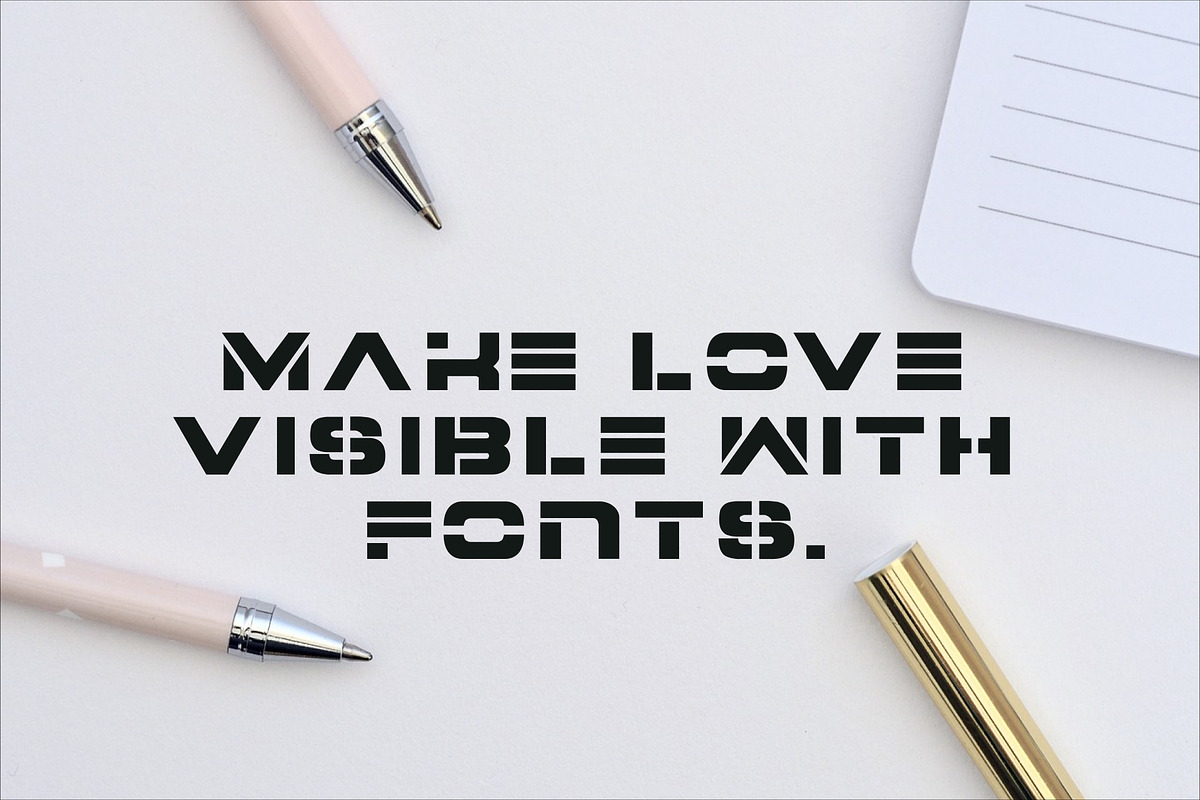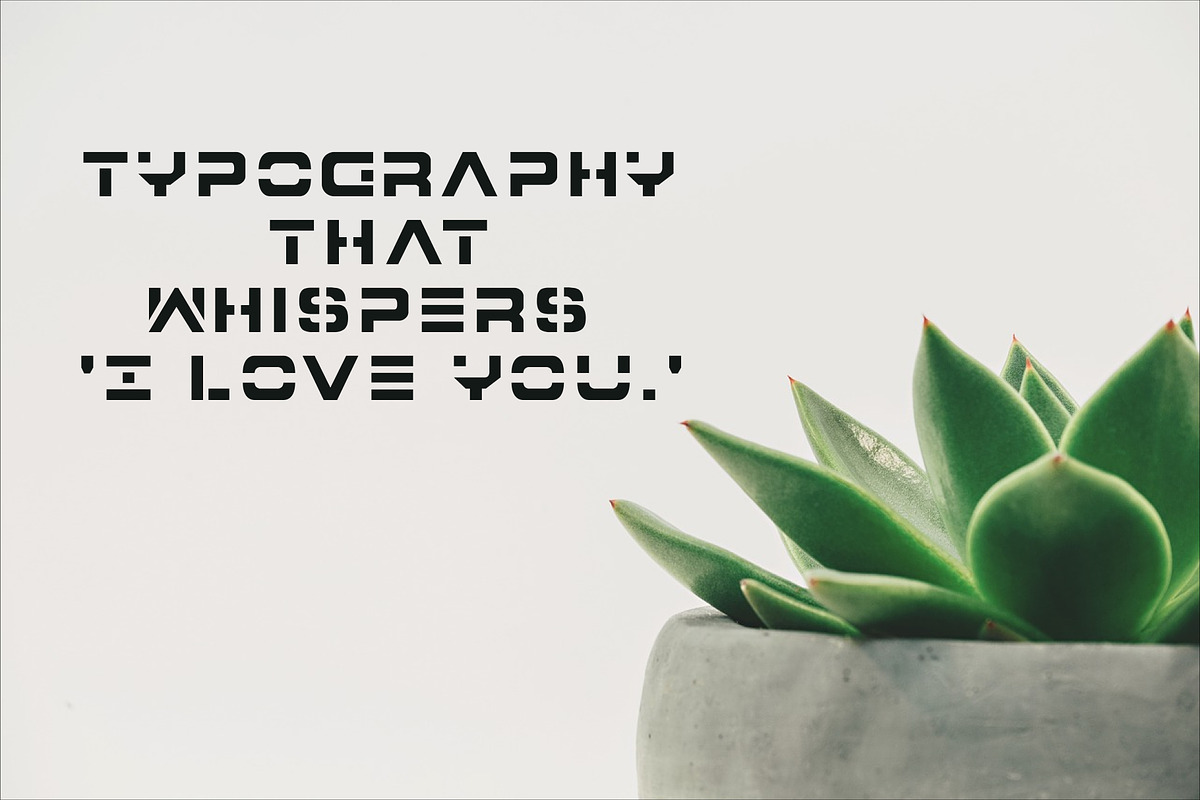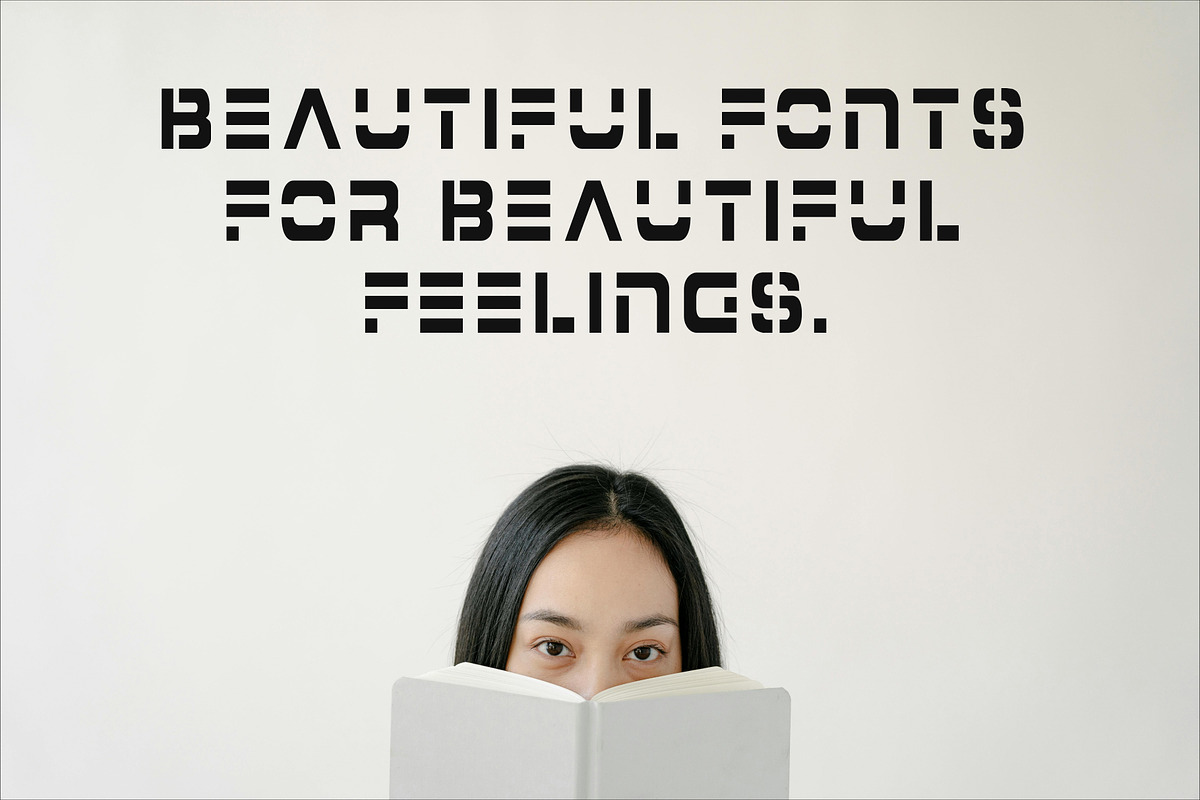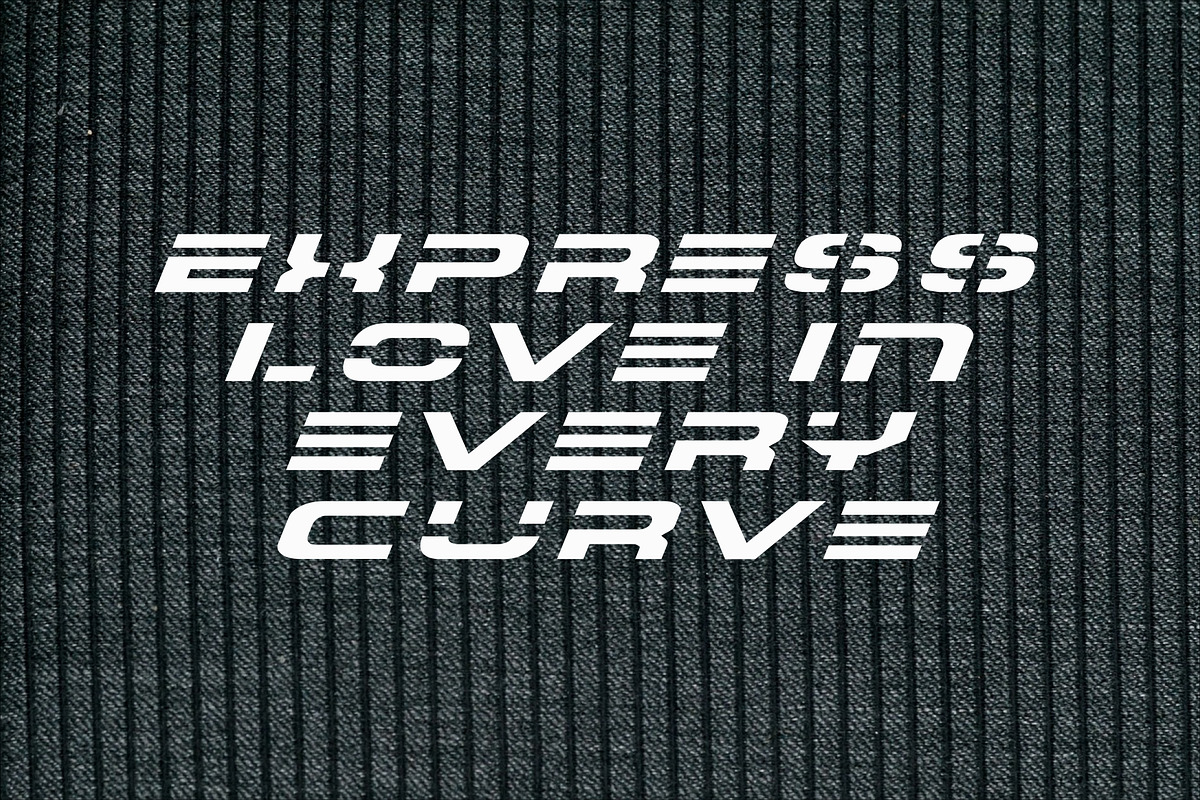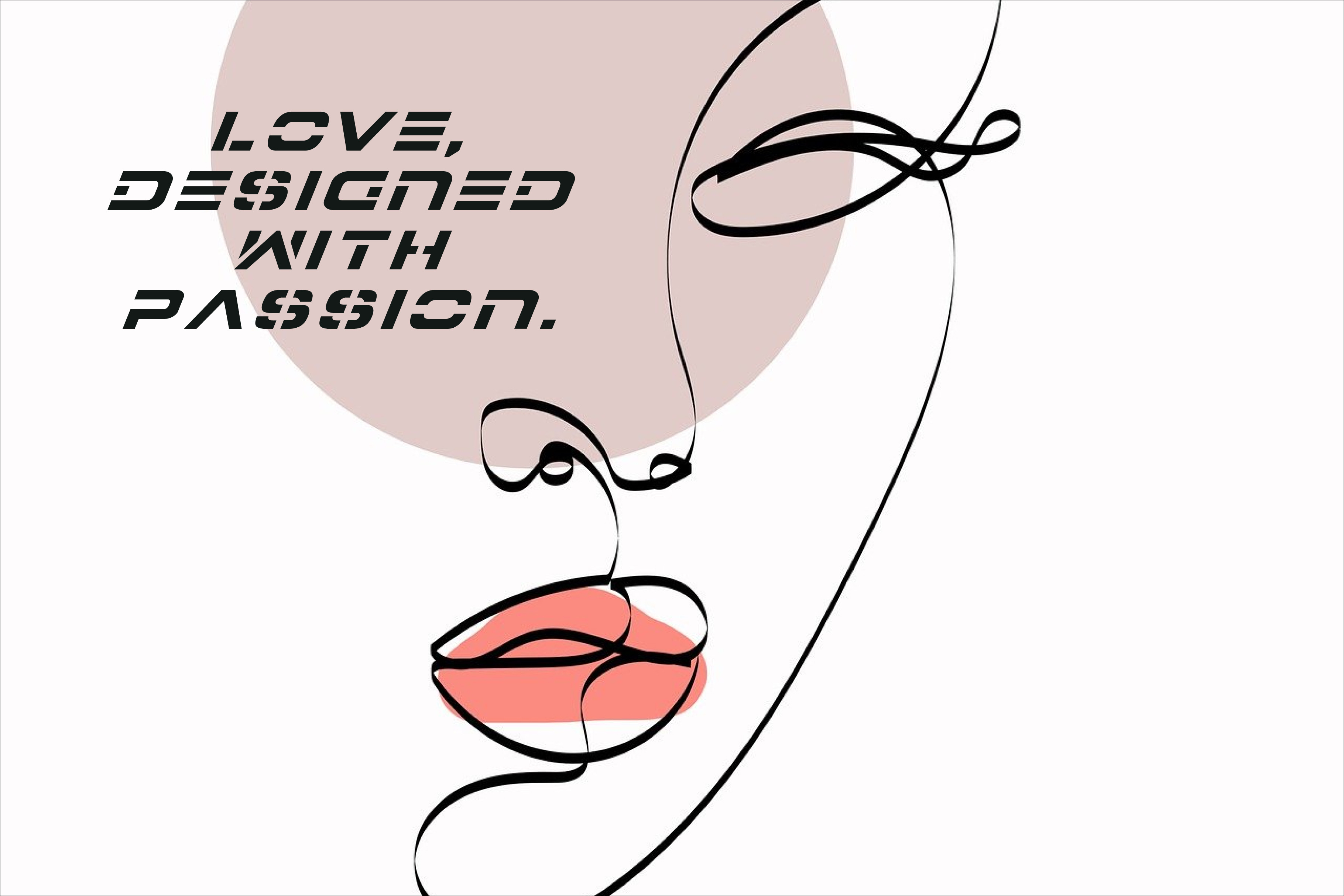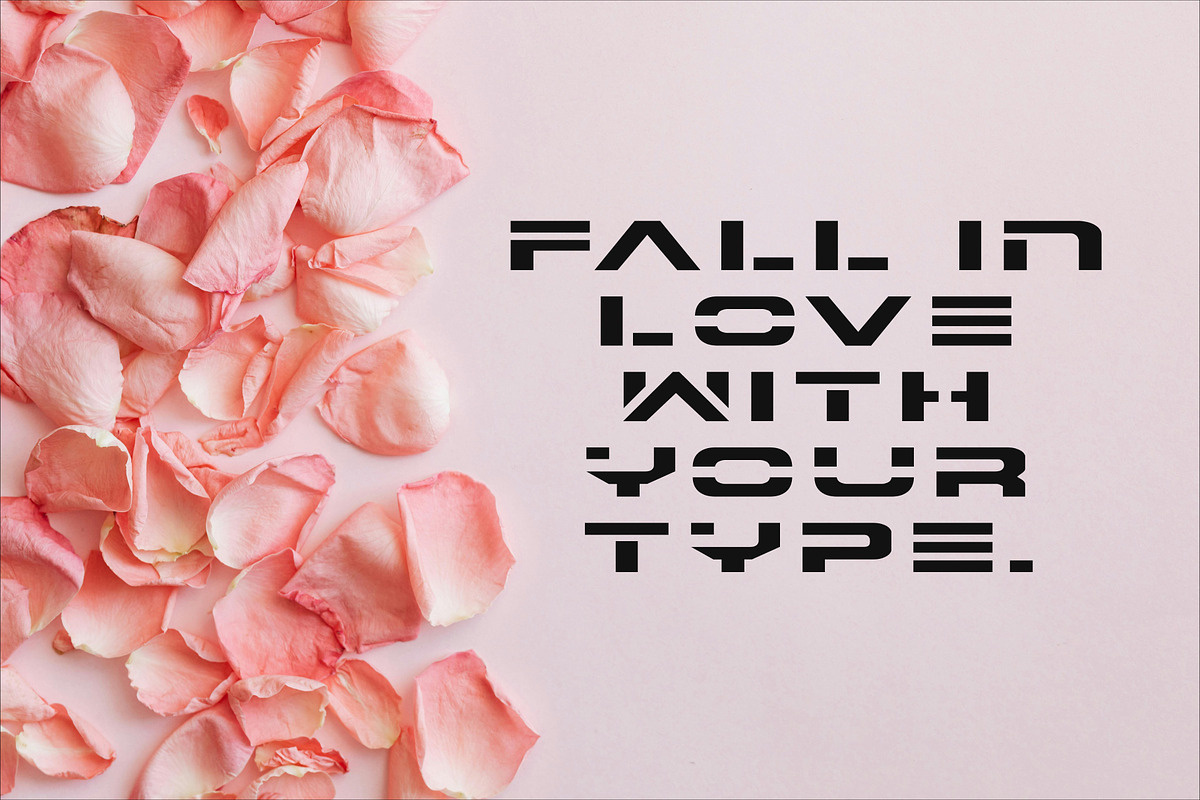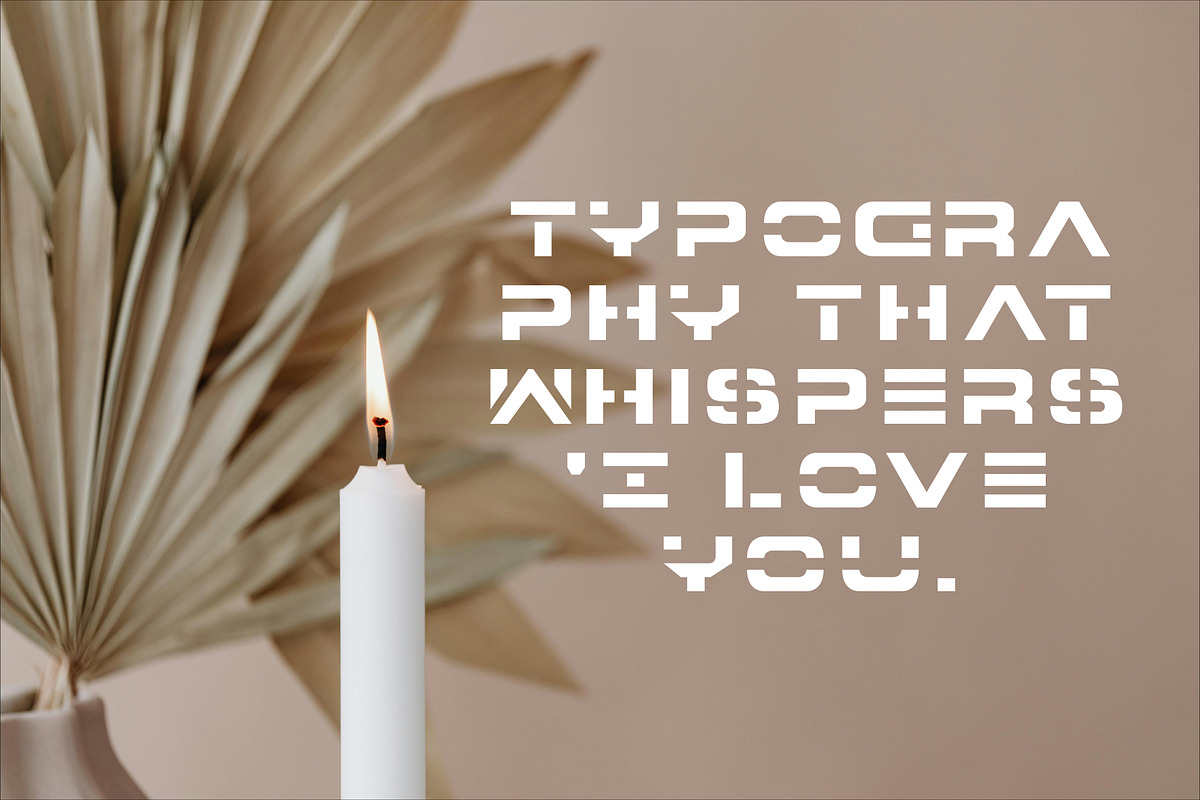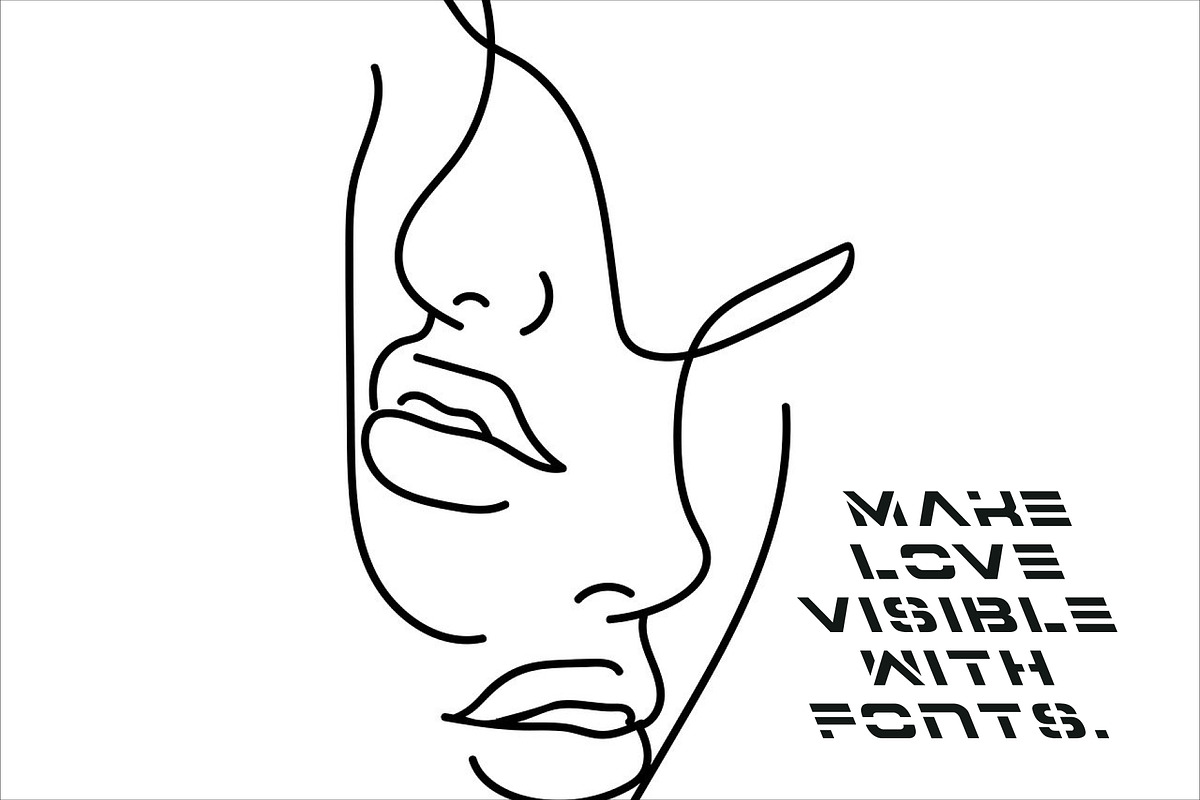
Font: Elevate Your Desig
Discover the perfect blend of modern elegance and timeless appeal with the 7th Service Font. This versatile display typeface offers bold, clean lines and subtle sophistication, making it ideal for branding, headlines, and creative projects.
Whether crafting a sleek logo or designing impactful marketing materials, 7th Service Font delivers the clarity and style your work deserves. Elevate your designs with a font that commands attention and exudes professionalism.